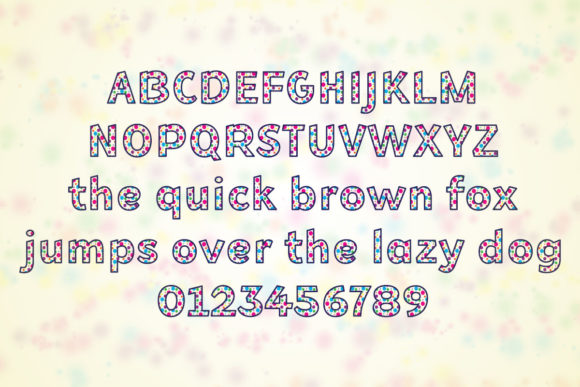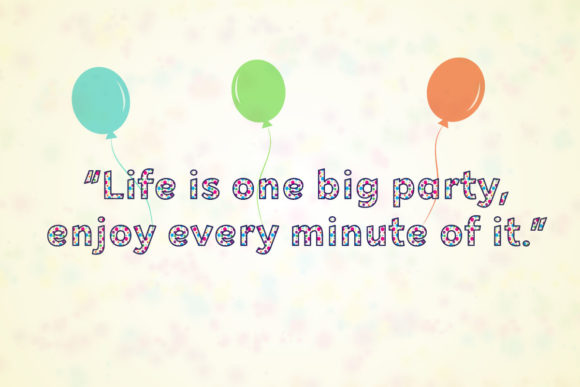
Bee Dotty Font
About Bee Dotty Font
Bee Dotty is a delightful and vibrant color font that exudes joy and playfulness. With its unique design and cheerful appearance, it is the perfect choice for any children’s activity or school project. Whether you’re working on a fun craft, creating educational materials, or designing playful posters, Bee Dotty will bring a touch of whimsy and authenticity to your projects.
The jolly and lively nature of Bee Dotty makes it appealing to children and adults alike. Its dotted texture adds an extra layer of visual interest and creates a playful look that captures attention. The font’s vibrant colors further enhance its charm and make it stand out in any design.
Embrace the fun and authenticity of Bee Dotty in your projects, and let your creativity soar. Whether you’re creating materials for children’s activities, school projects, or any other design endeavor, this font will bring a smile to everyone’s faces. Enjoy exploring the possibilities and have fun with Bee Dotty! If you have any more questions, feel free to ask.